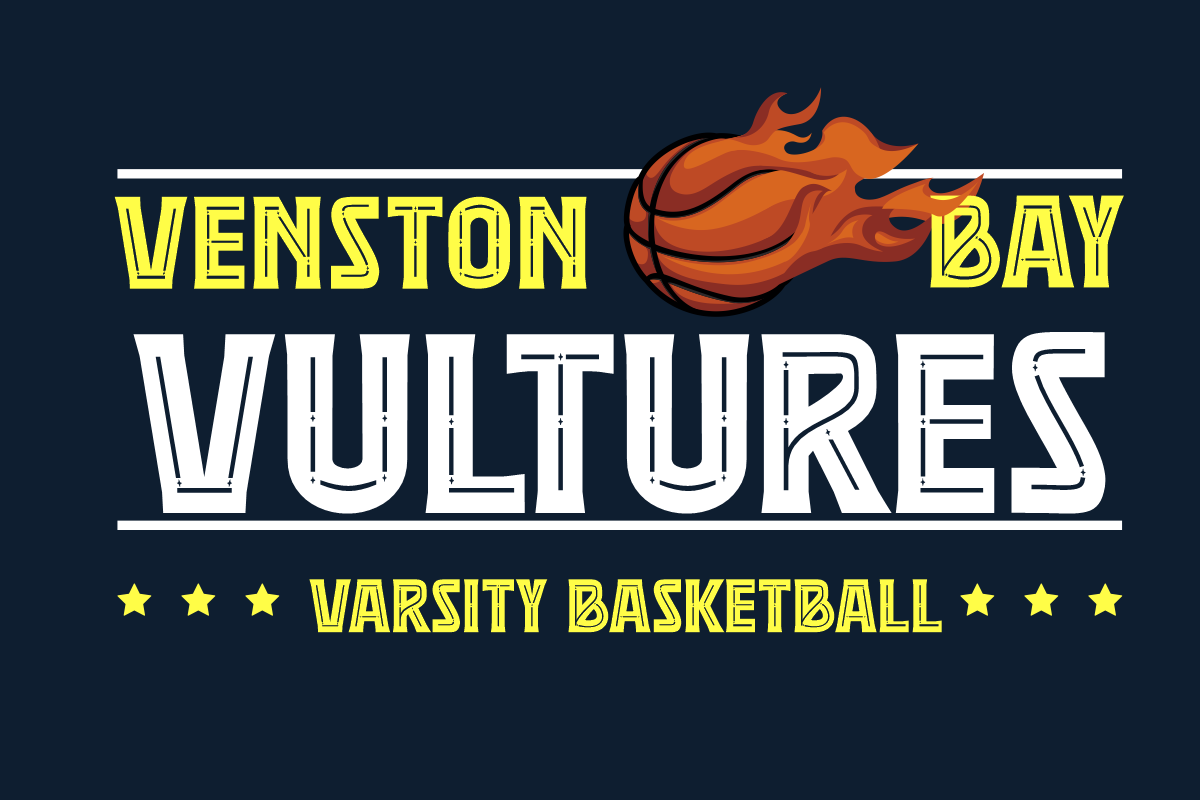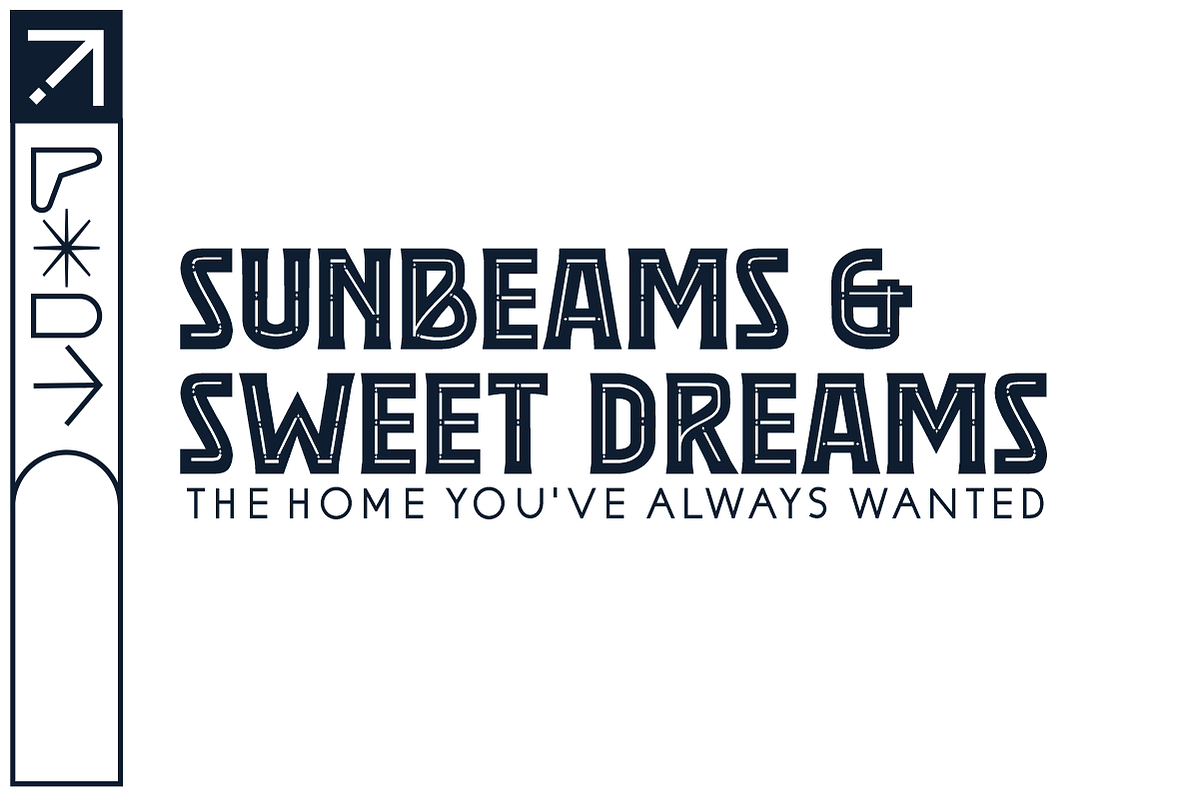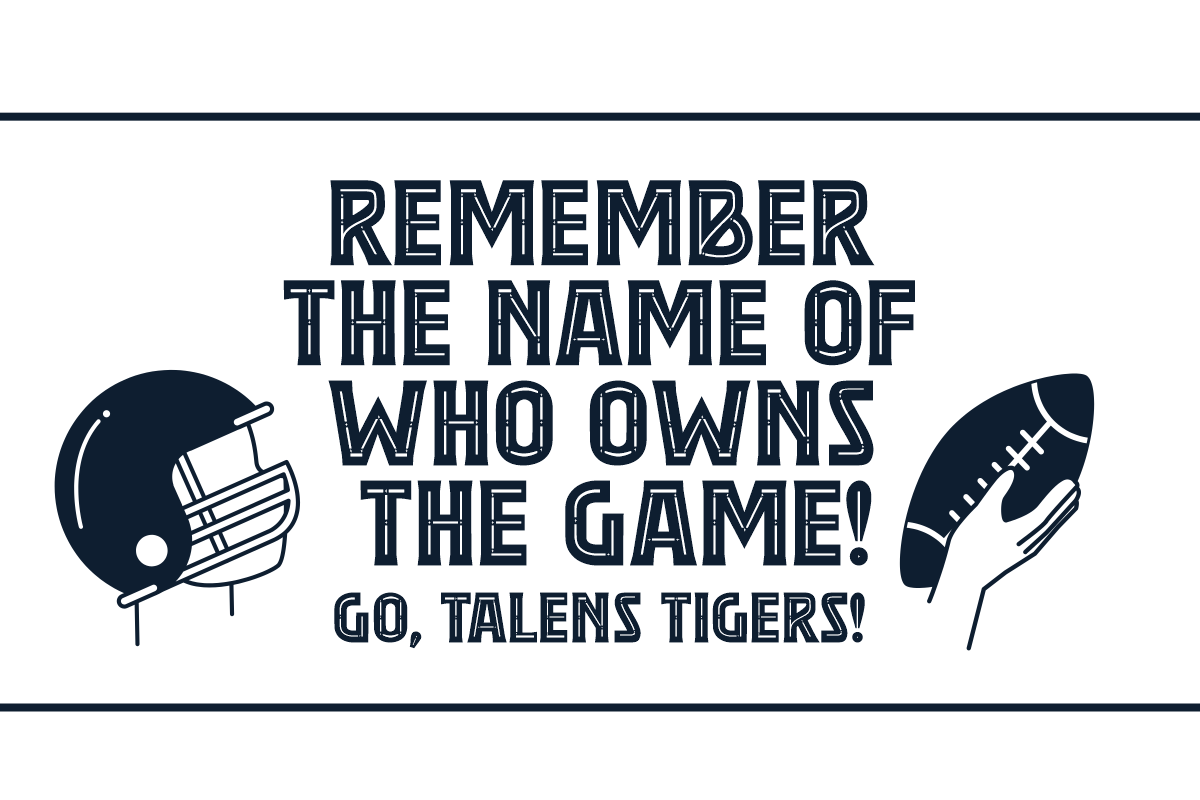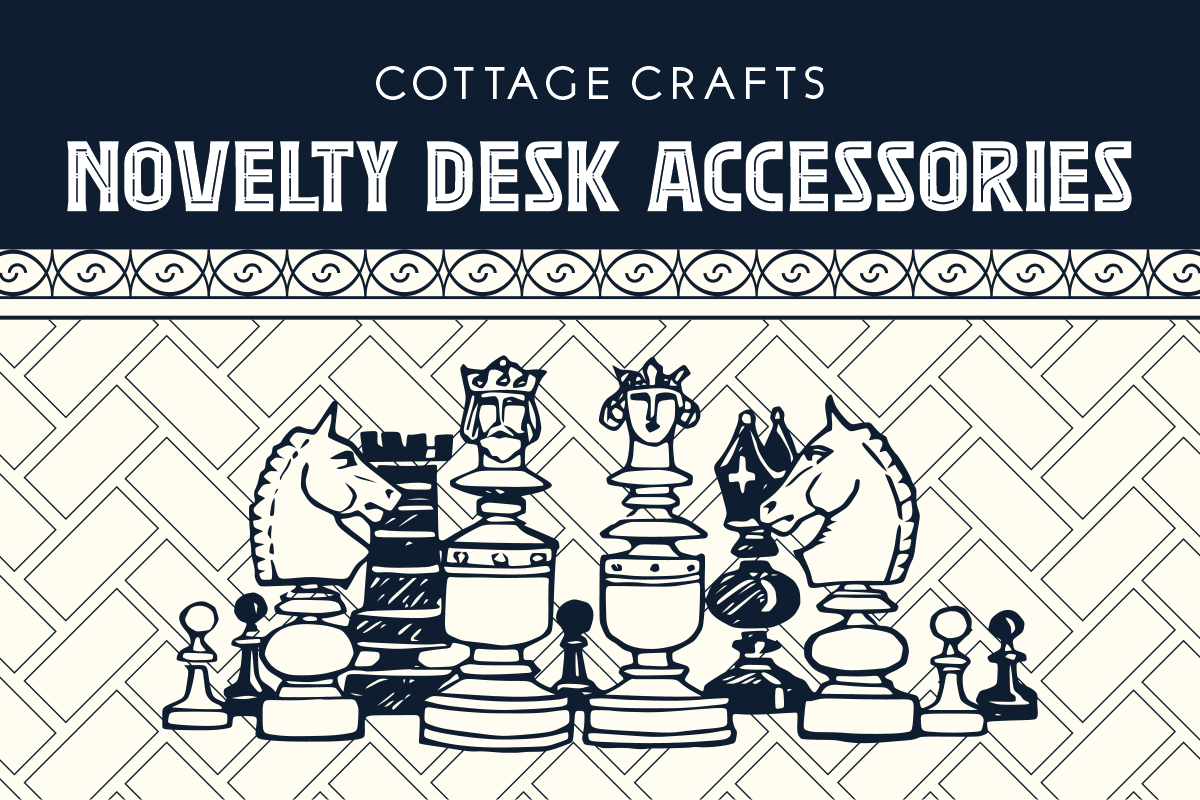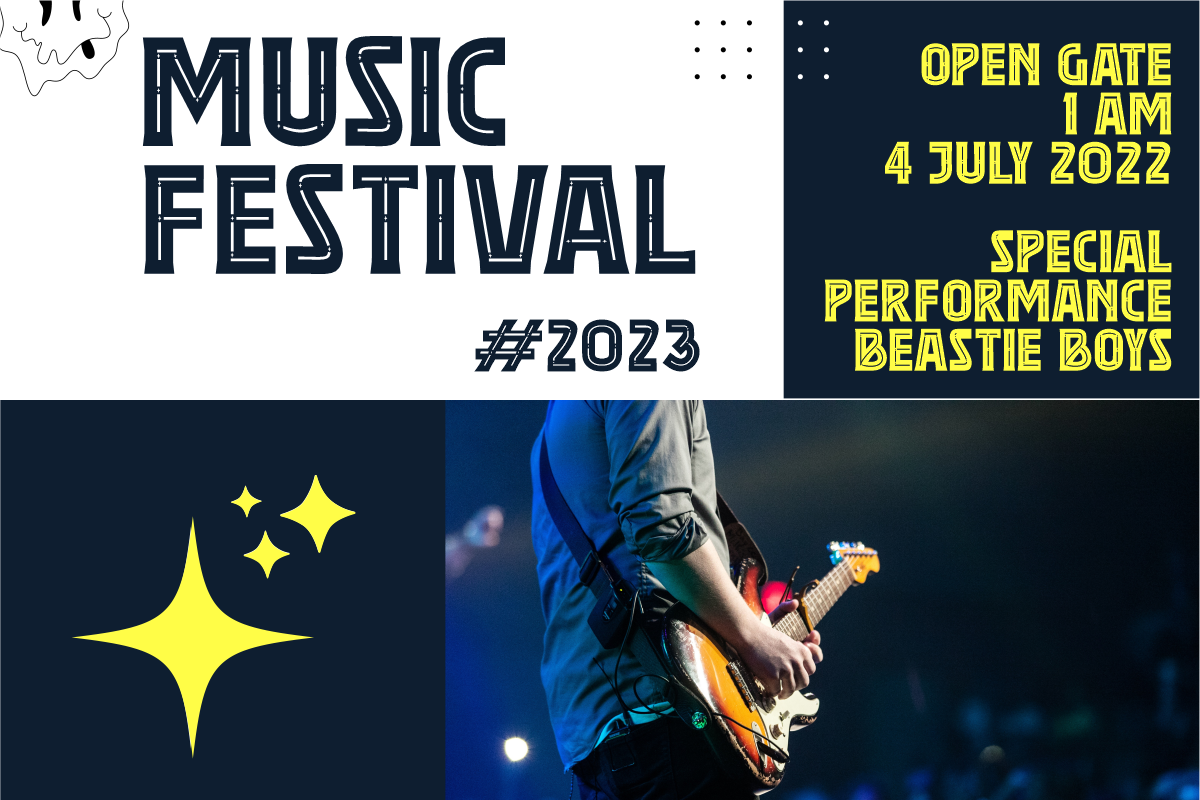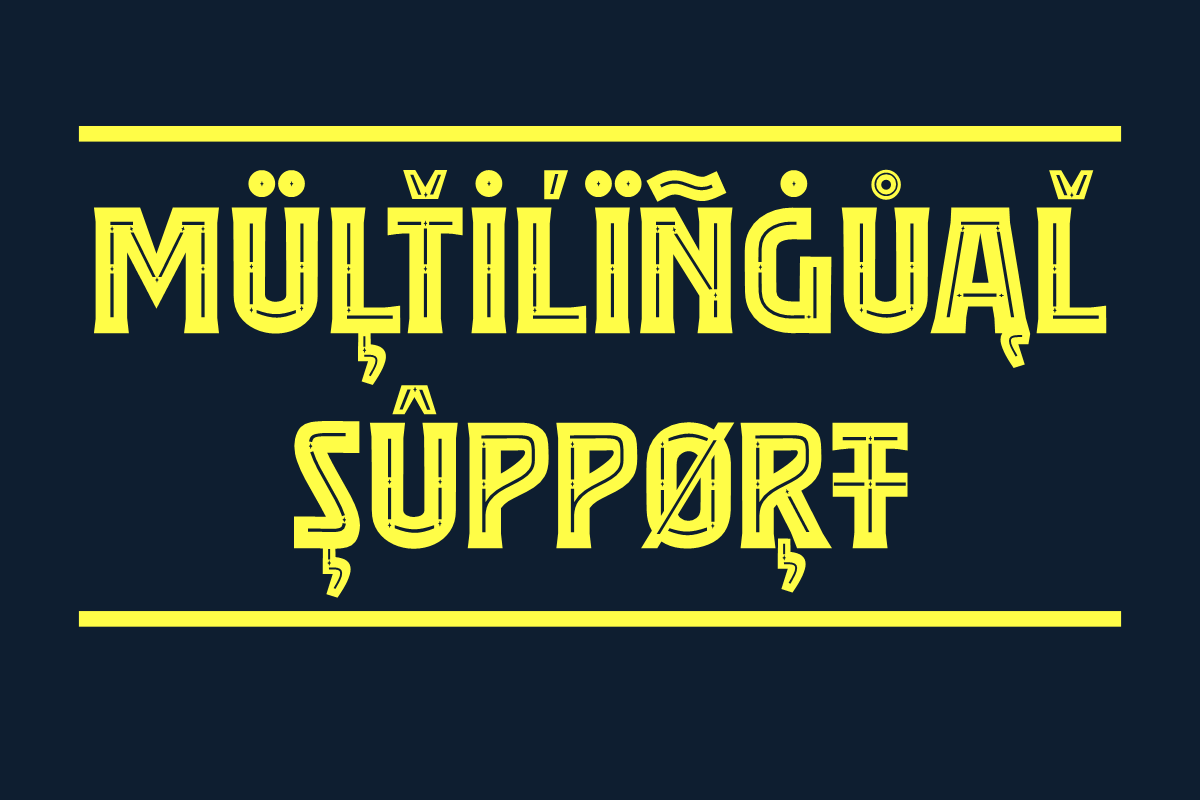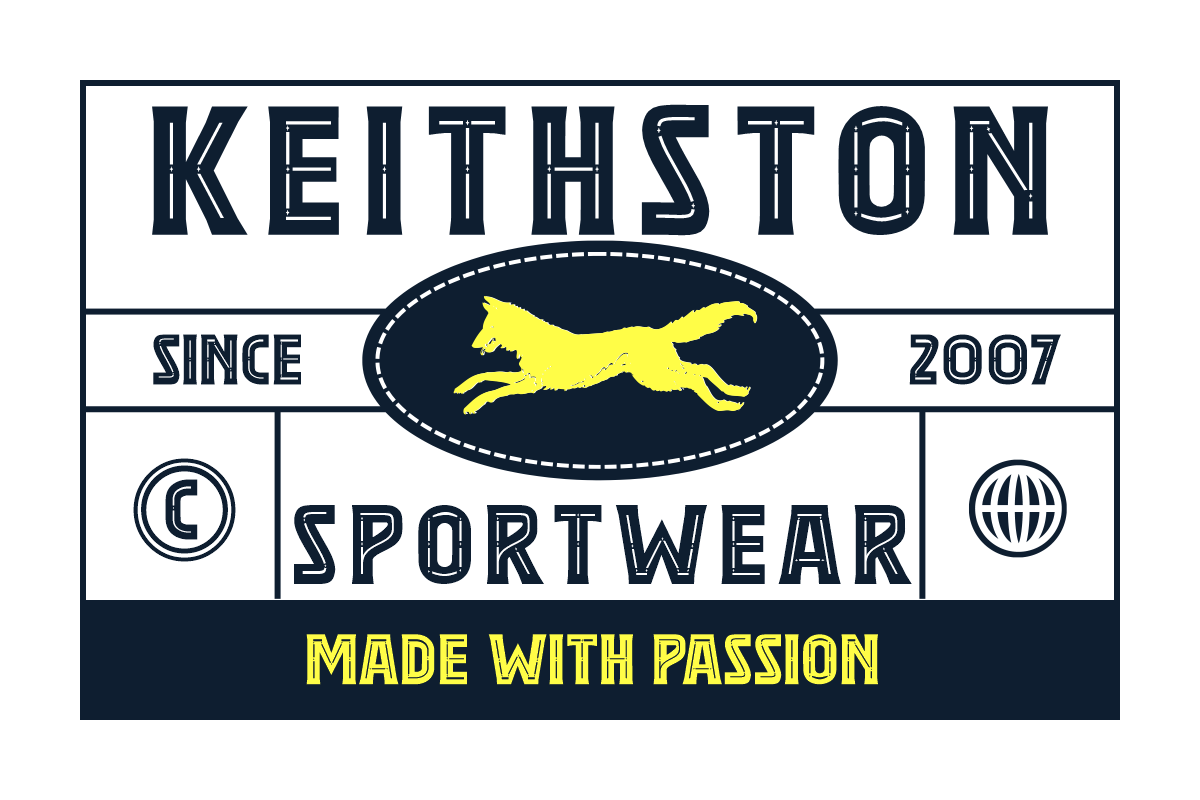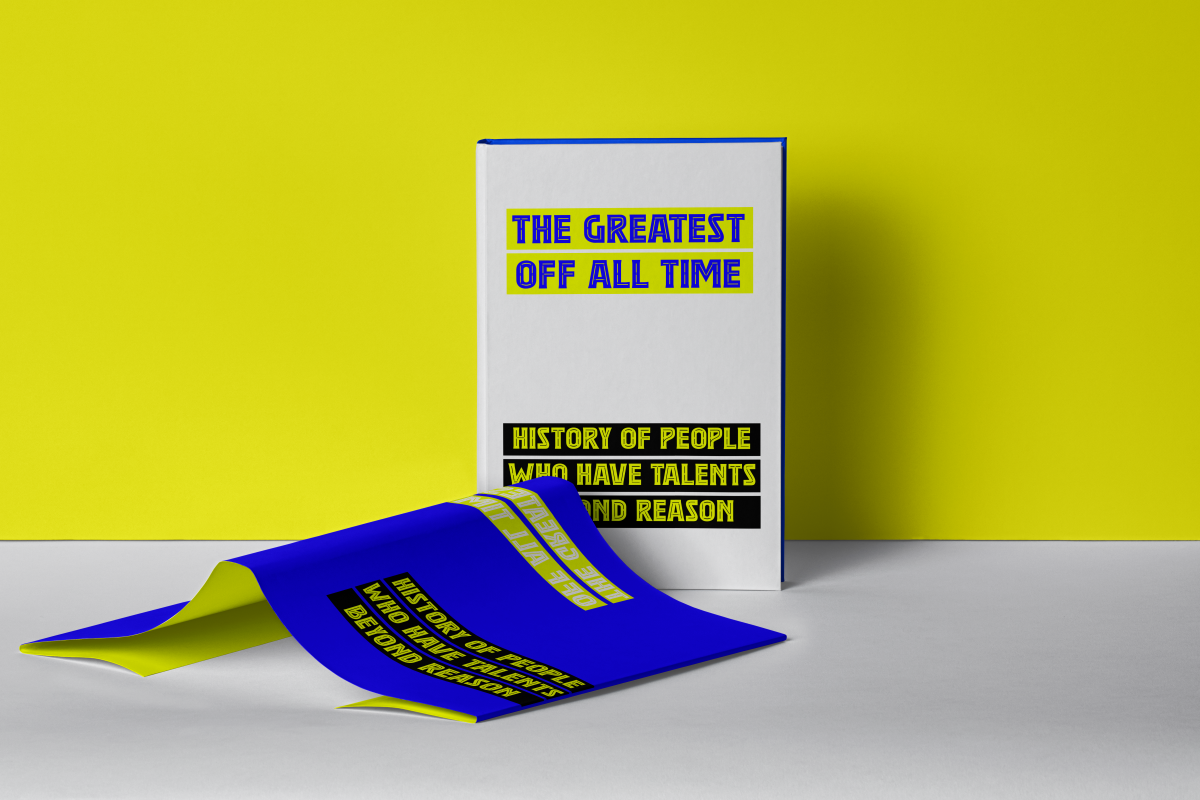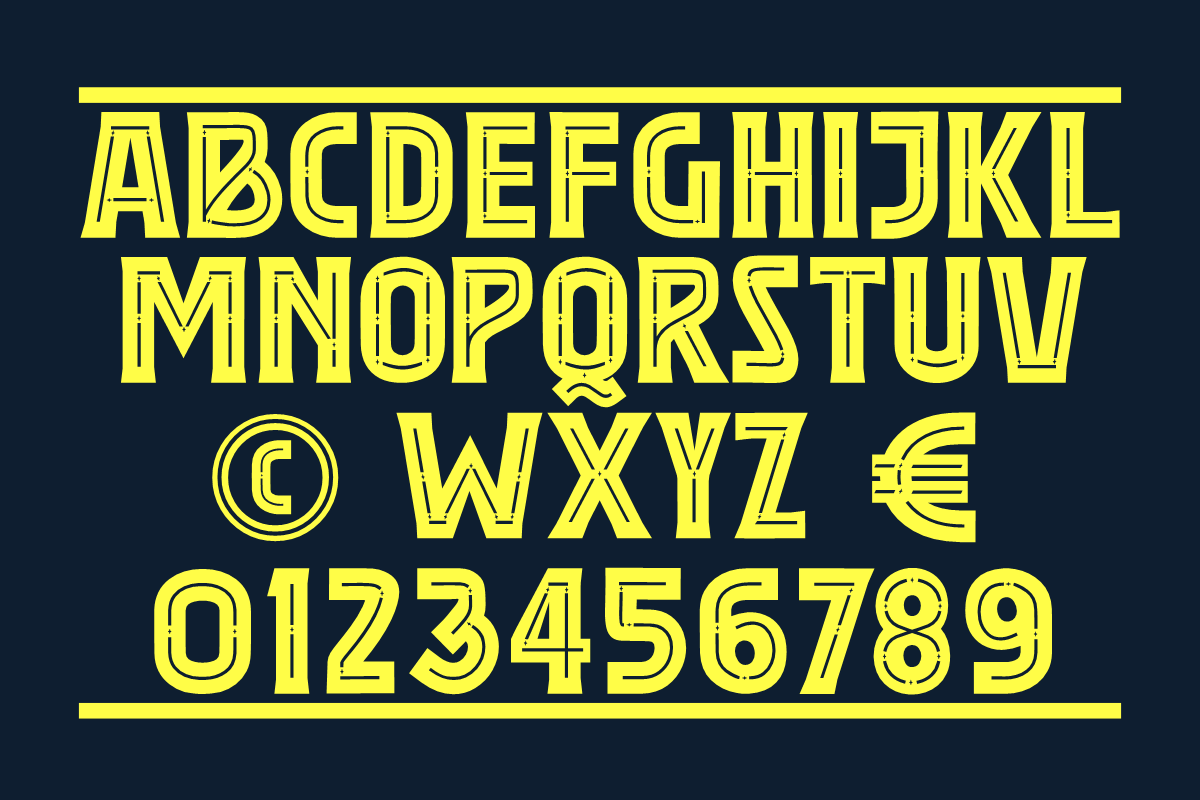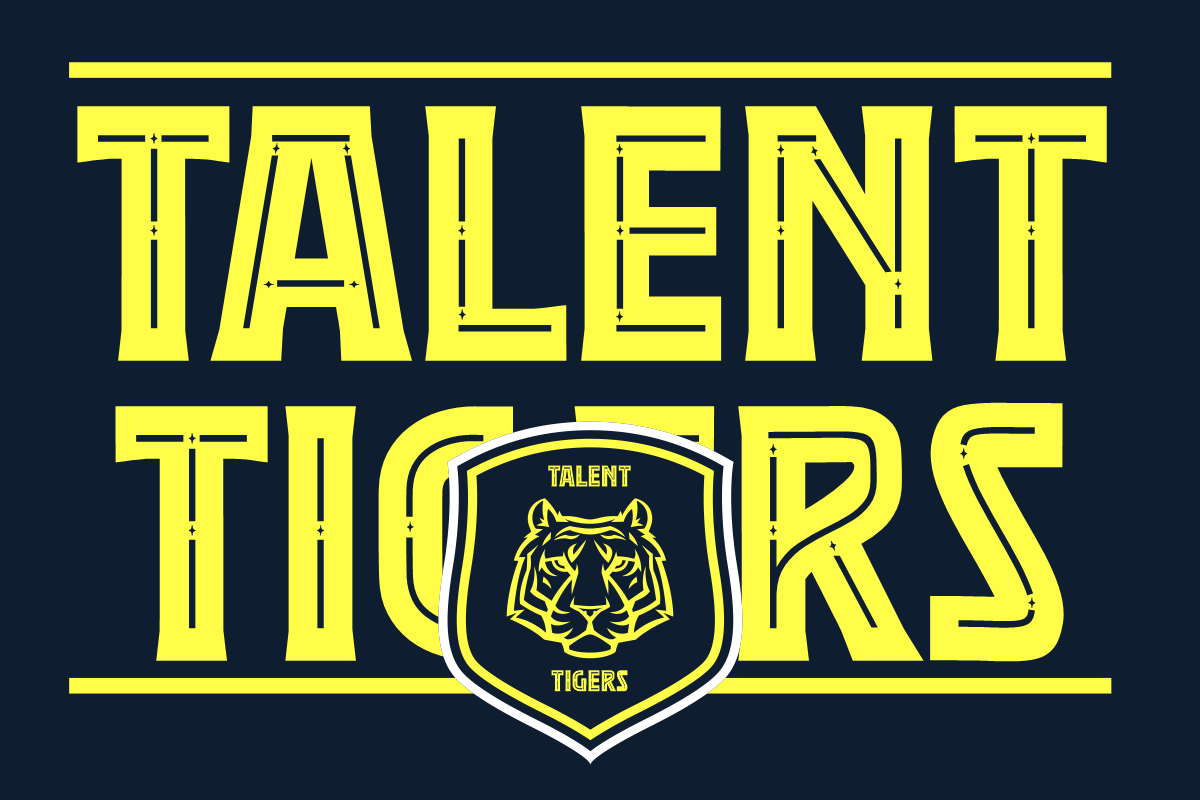
American Champion – Display Serif
This font is very suitable to be applied in various aspects of design, and your branding. It’s perfect for logos, branding, title, social media posts, advertisements, product packaging, product designs, label, photography, watermark, special event, magazine, web designs, etc.